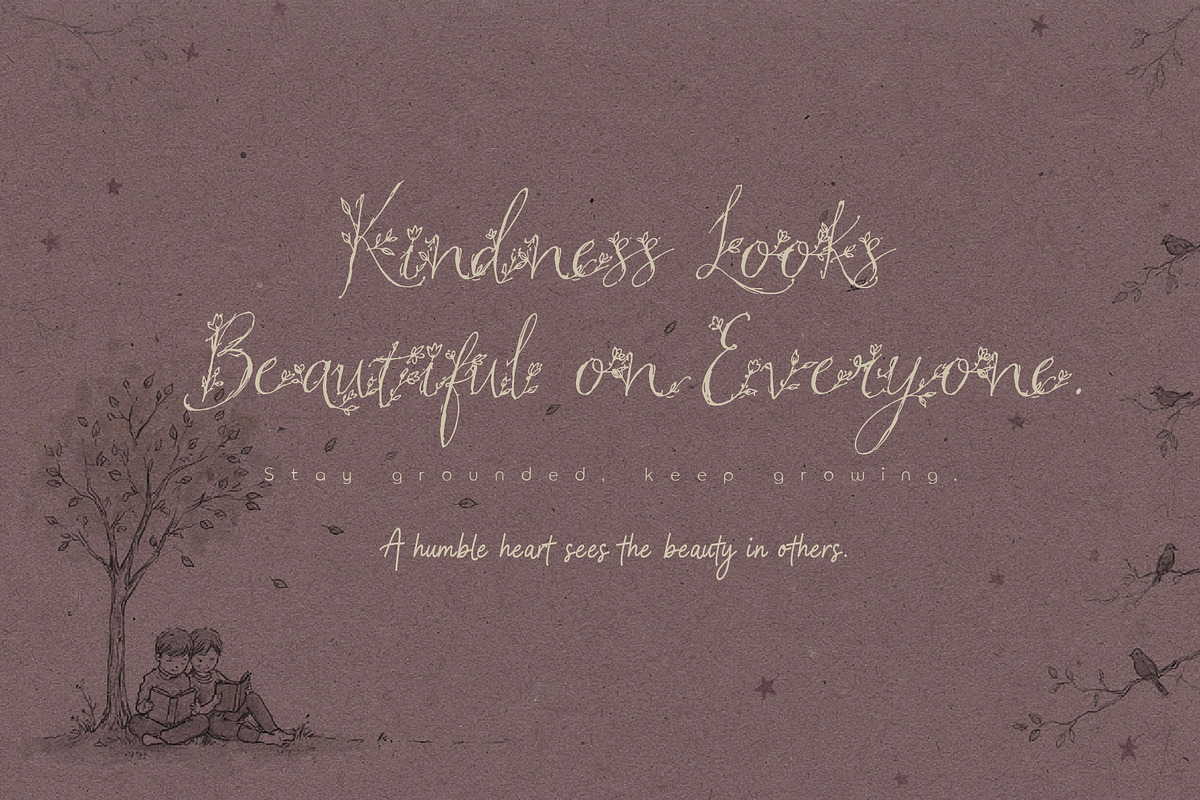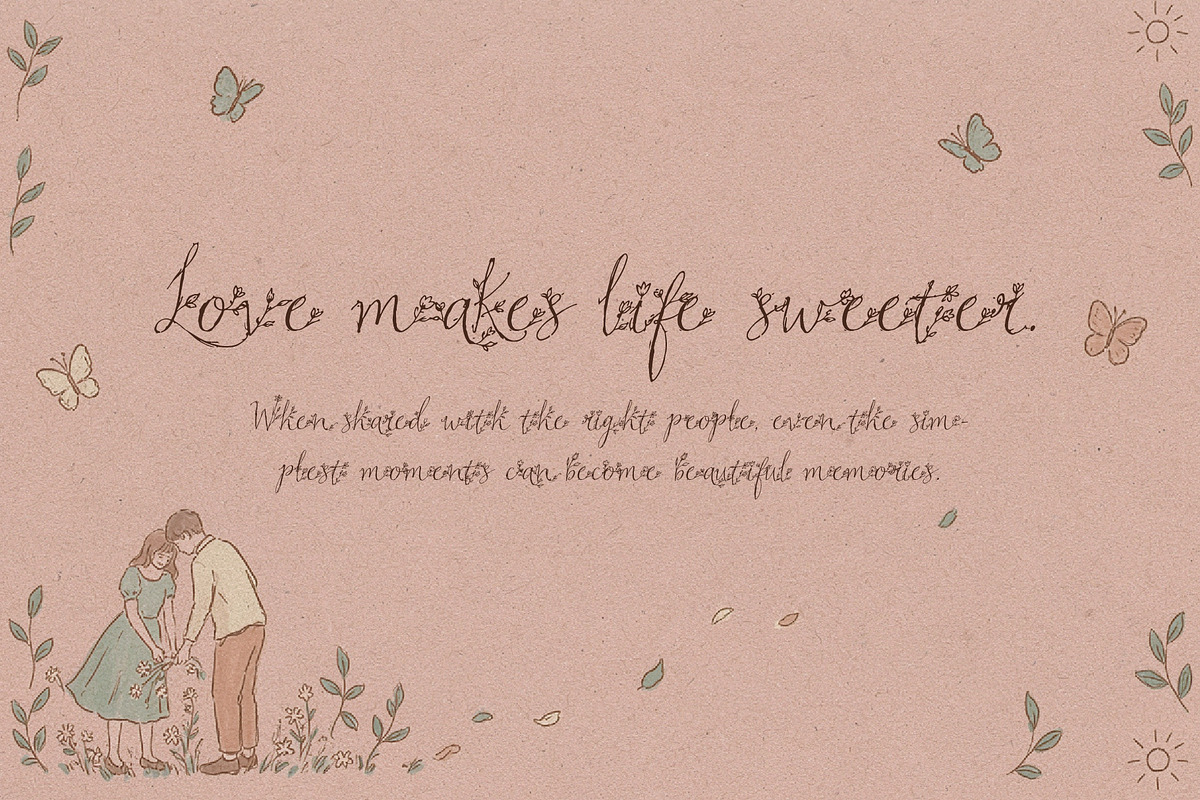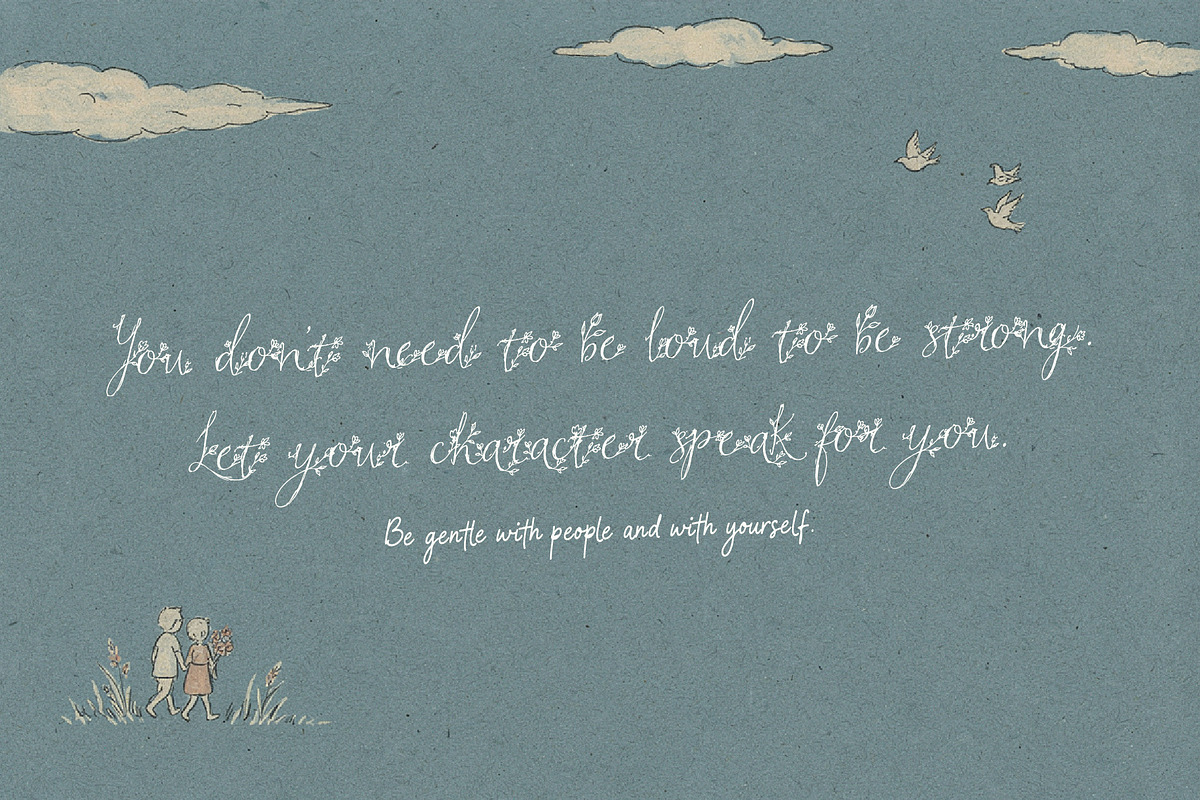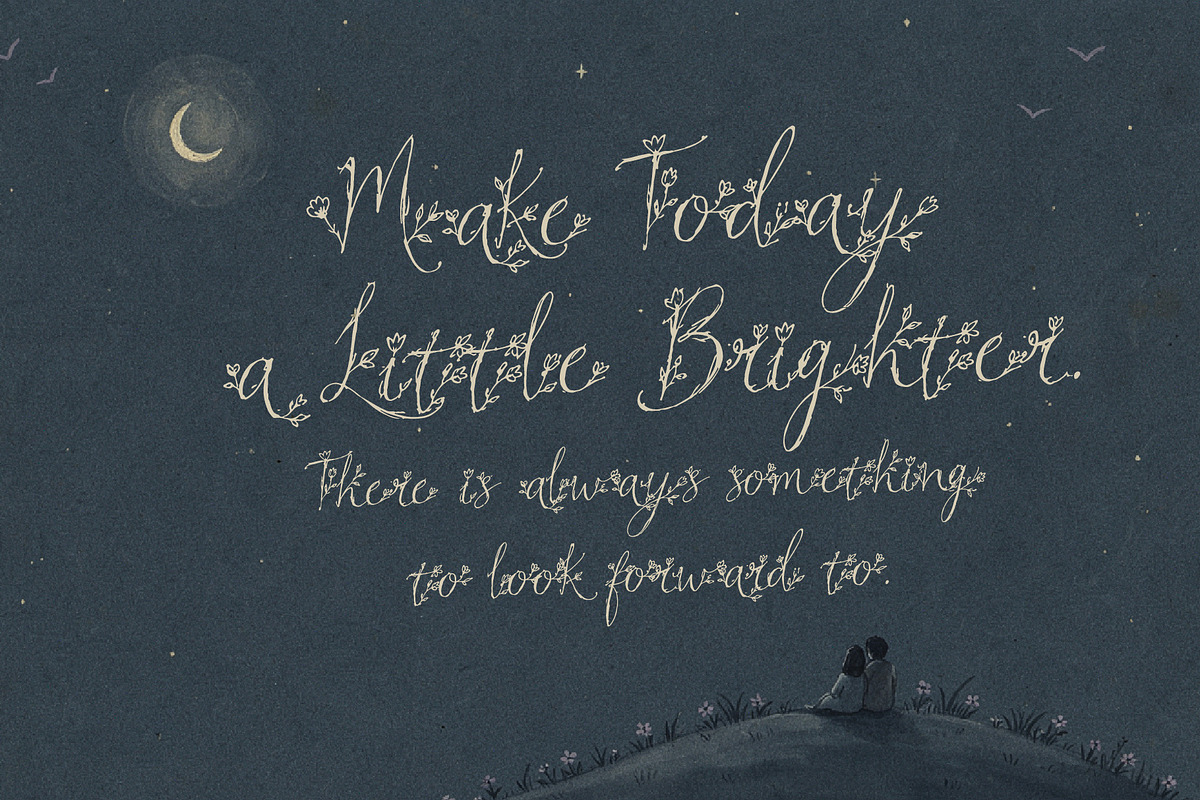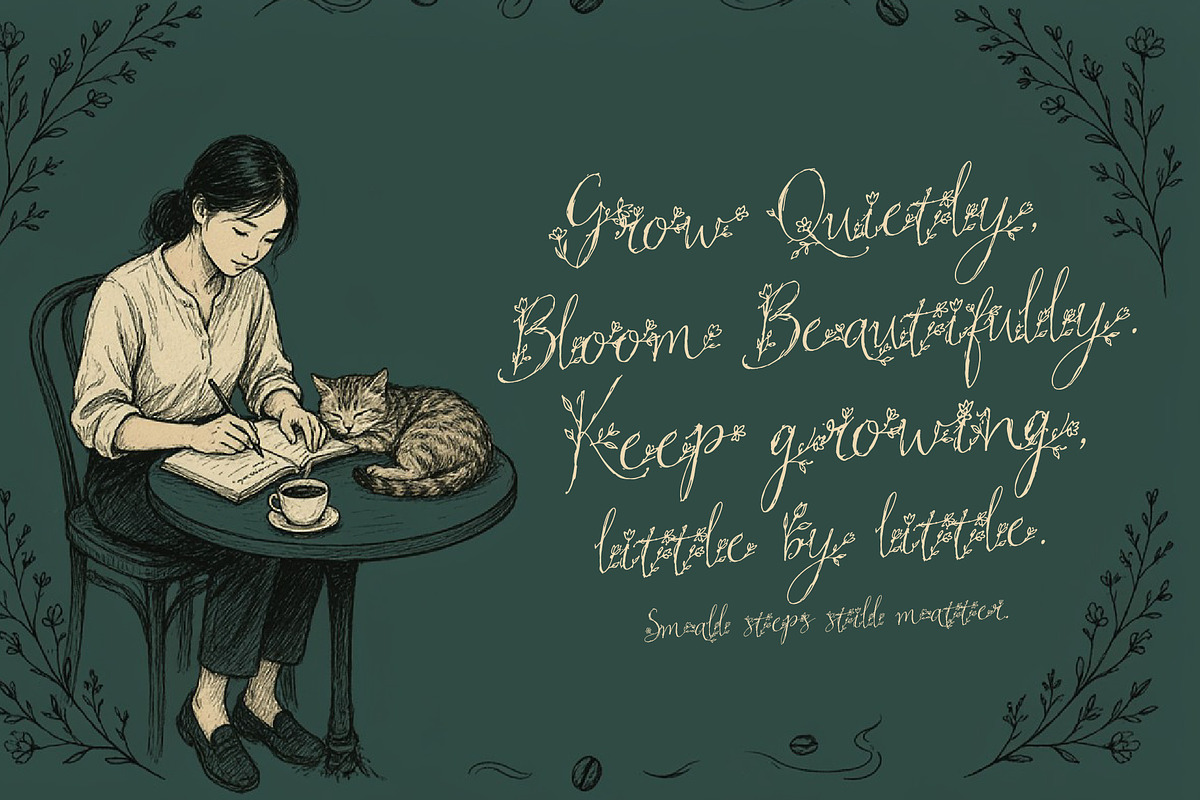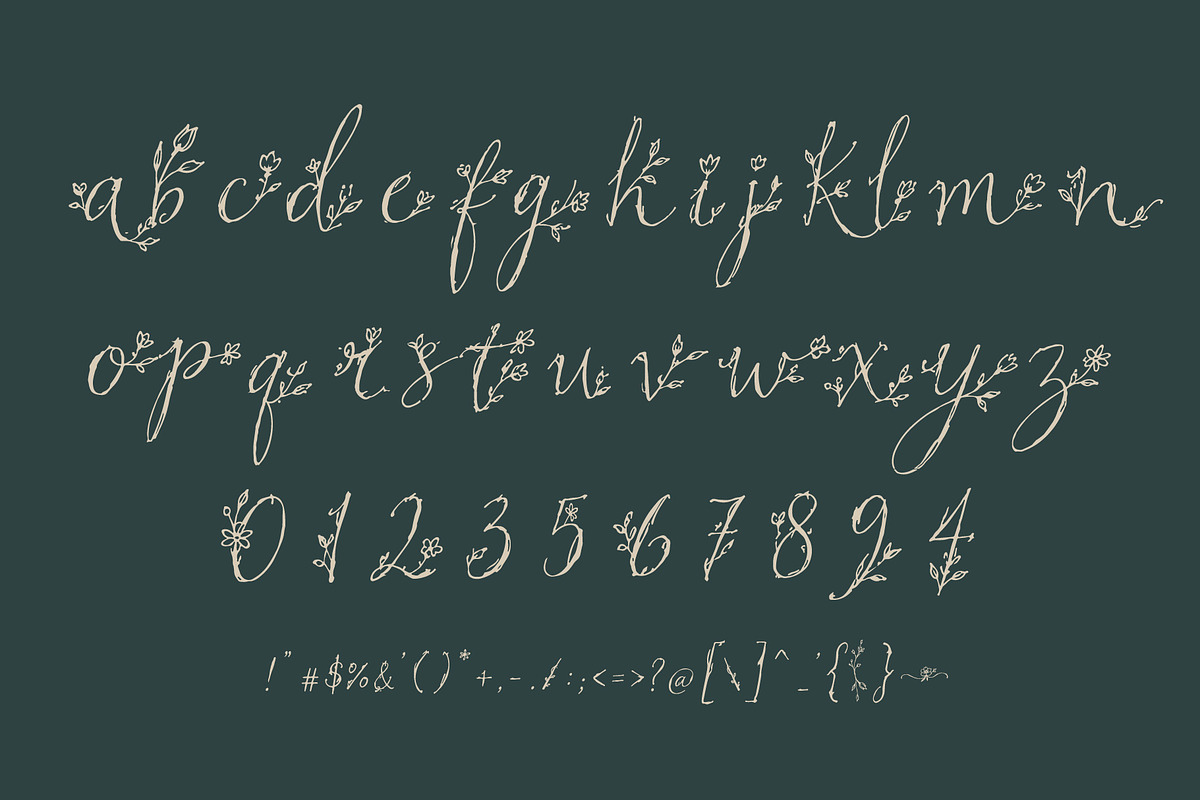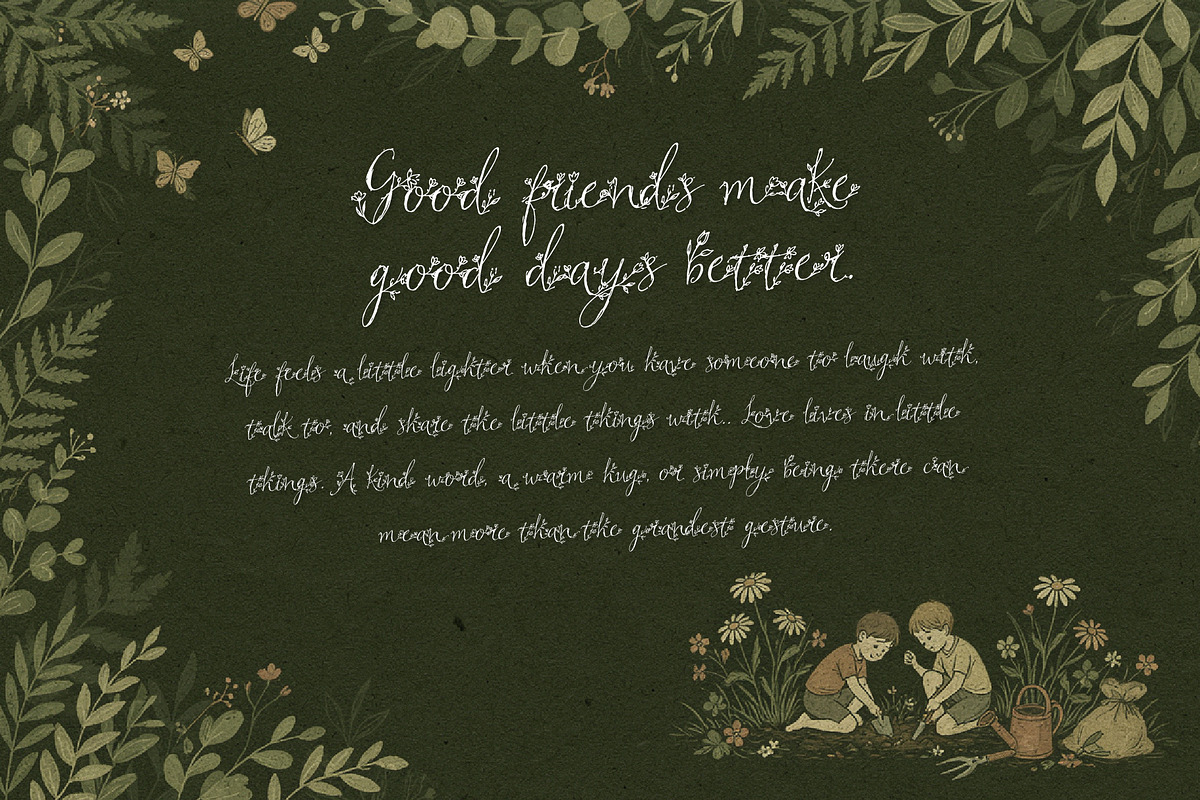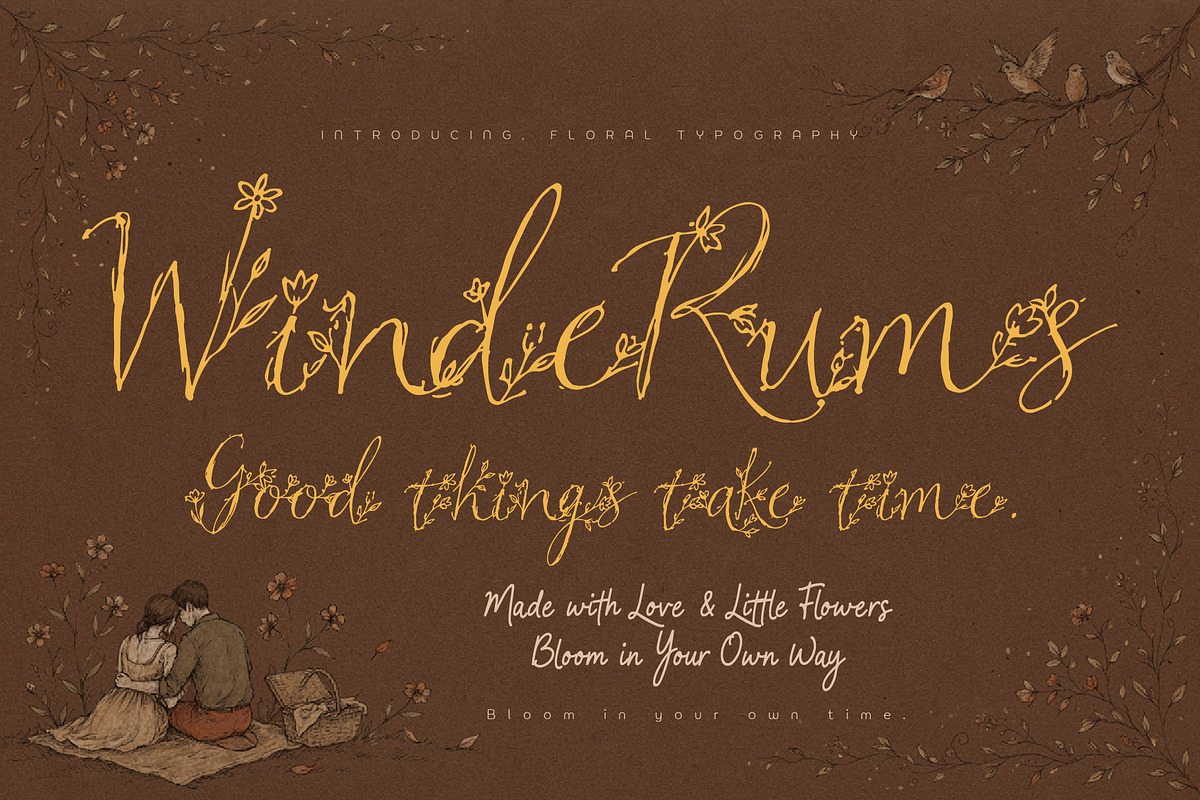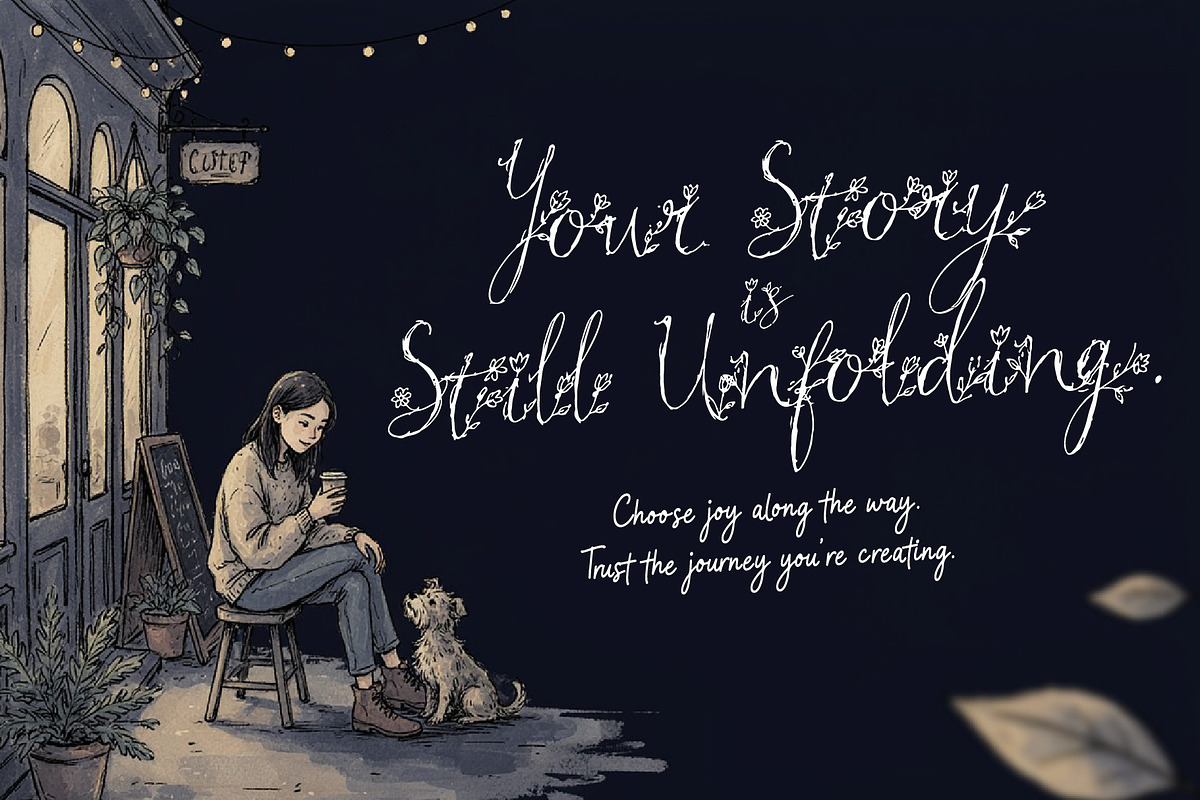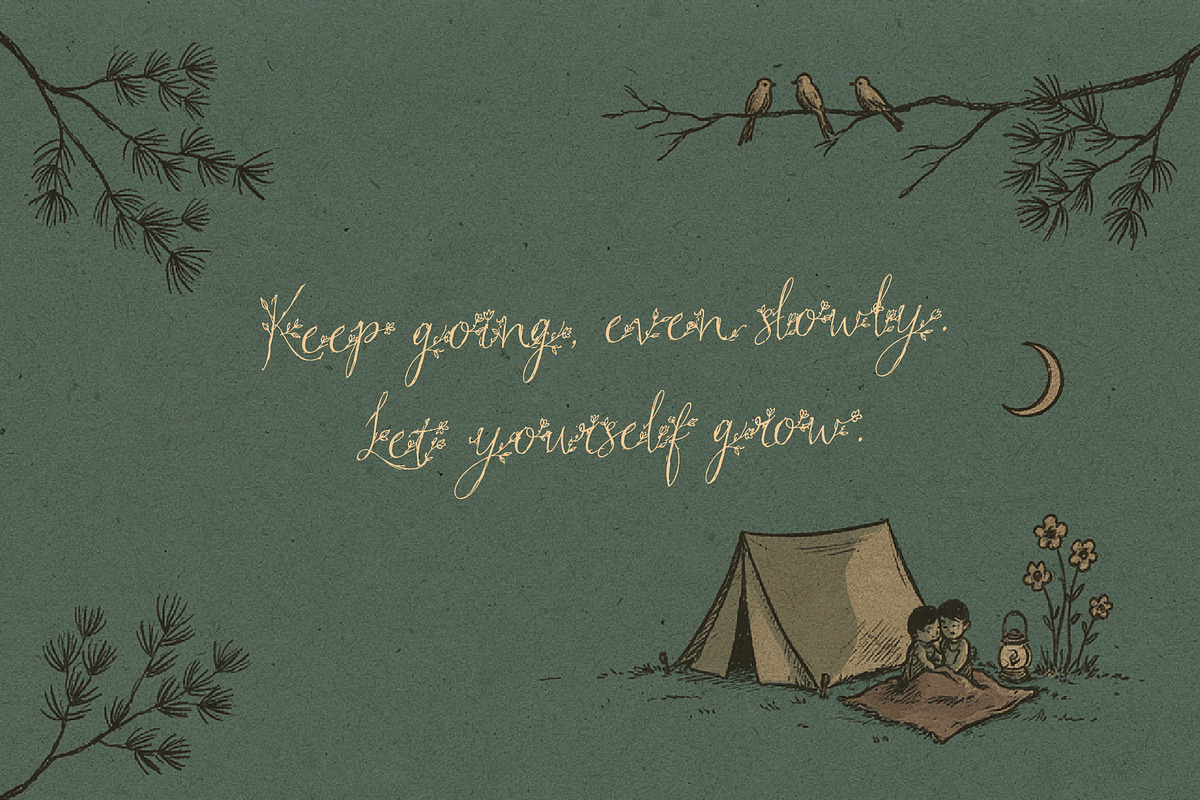
WindeRums - Rustic Floral Script
WindeRums is a charming floral script with a friendly, rustic hand drawn character. Its organic strokes, playful curves, and imperfect lettering give it a warm handmade feeling, while the floral details add a sweet and feminine touch.
With its natural, slightly rough personality, WindeRums feels like lettering made by hand rather than perfectly polished type. Perfect for logos, branding, packaging, stationery, invitations, apparel, social media, journals, handmade products, lifestyle projects, and creative designs.
A cheerful floral script for designs that feel warm, rustic, friendly, feminine, playful, and beautifully handmade.